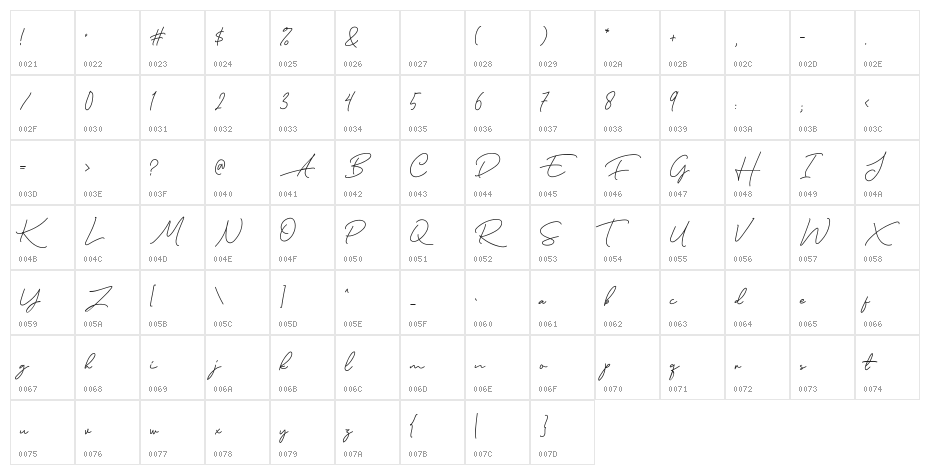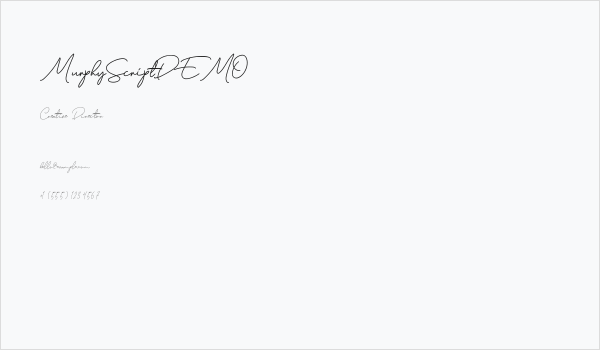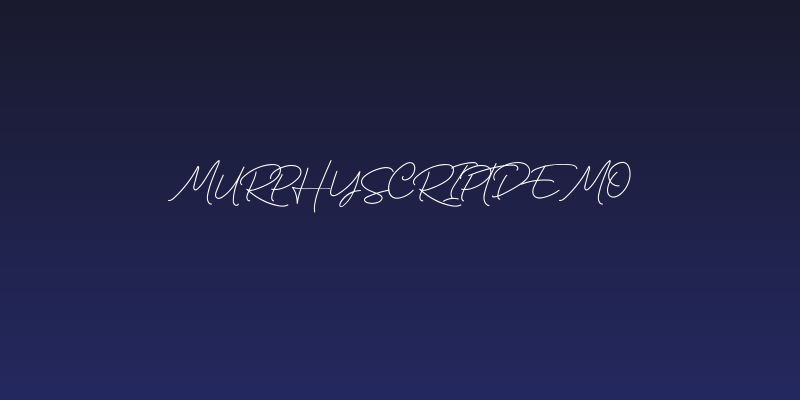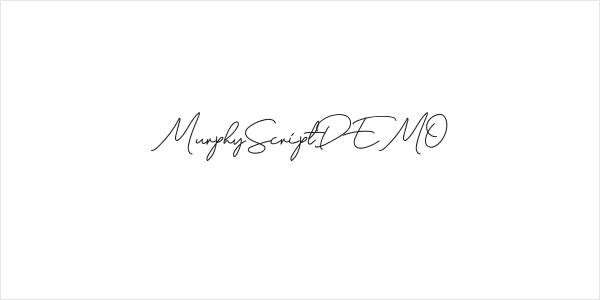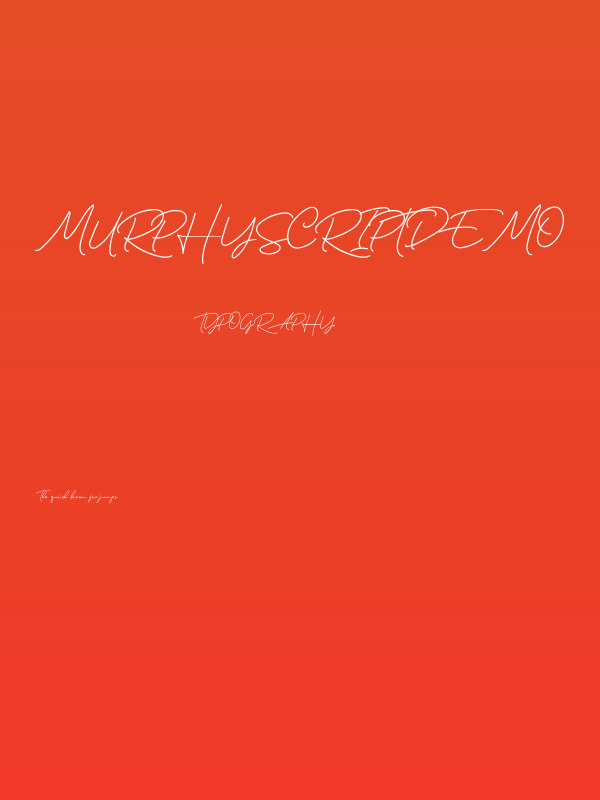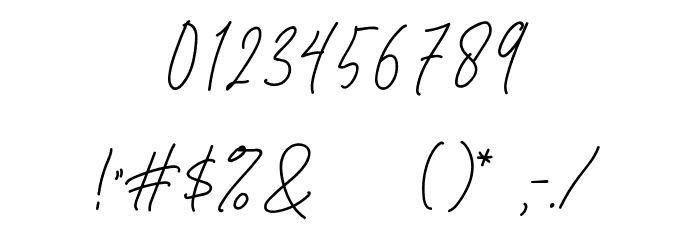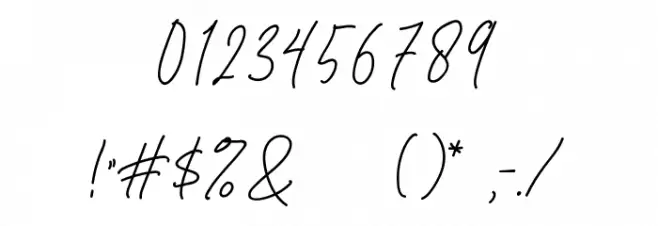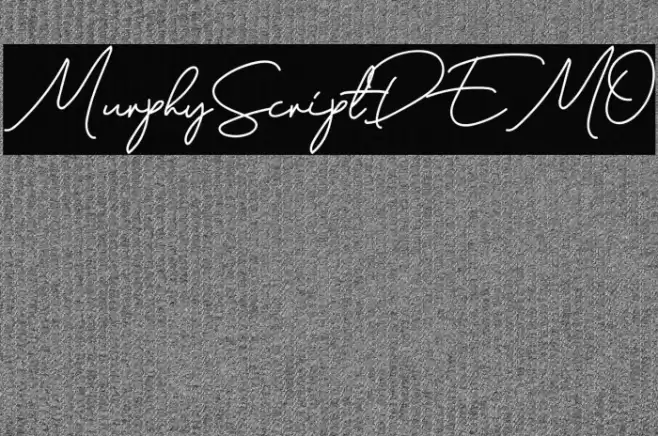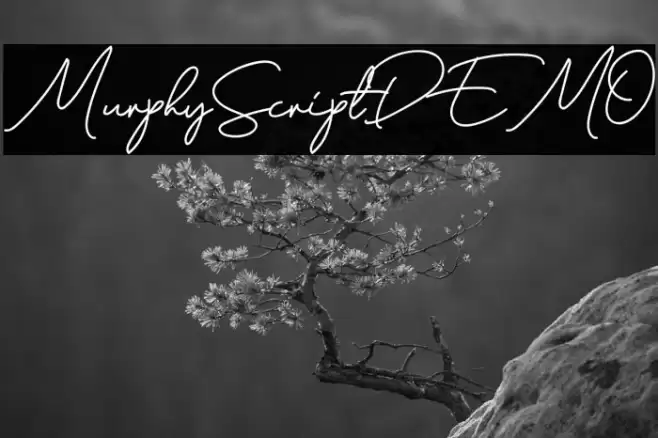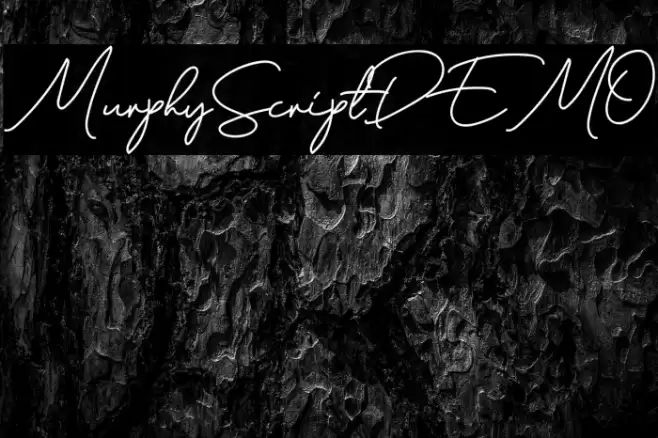
MurphyScriptDEMO Font
| Schriften Familie | Murphy Script DEMO |
| Gesamtstil | Elegant, Handwritten |
| Anwendungsfall | Logos, Invitations, Personal Branding |
| Vorgeschlagene Projekte | Ideal for wedding invitations, greeting cards, personal branding, and elegant packaging designs. |